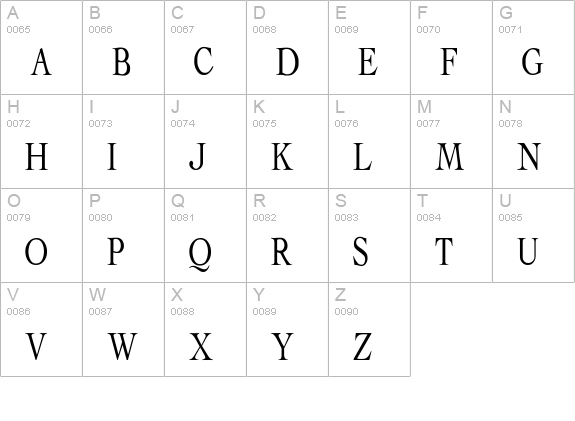
Albatross Font Details
Albatross font is a sleek and elegant typeface that exudes sophistication and modernity. With its clean lines and balanced proportions, this font is perfect for a wide range of design projects, from branding to editorial design. The Albatross font is free to download at FontsMarket.com, making it accessible to designers and creatives looking to elevate their work with a touch of timeless elegance. Its versatility and readability make it a go-to choice for any project where style and sophistication are key. Add a touch of class to your designs with the Albatross font today.